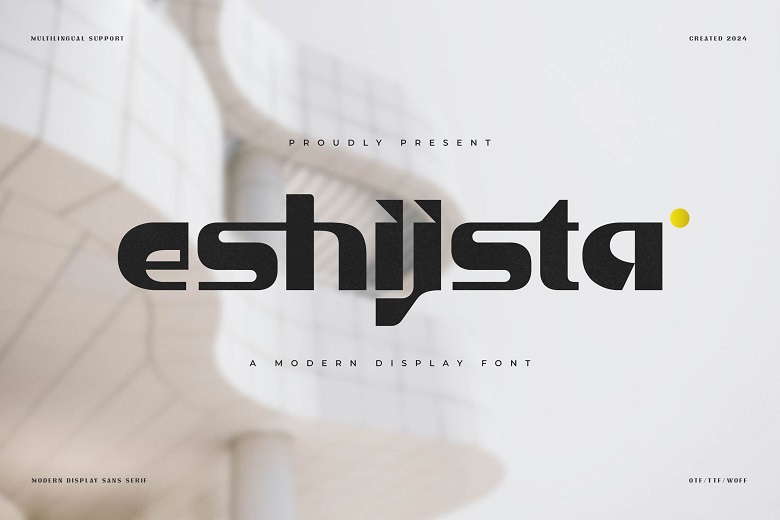
Eshijsta Font
Eshijsta is a modern type of a display screen, it presents images that are clear and bright. As for its design the company describes it as stylish and comfortable for modern environment thus it can be used effectively in offices as well as at home.
Eshijsta Display Font